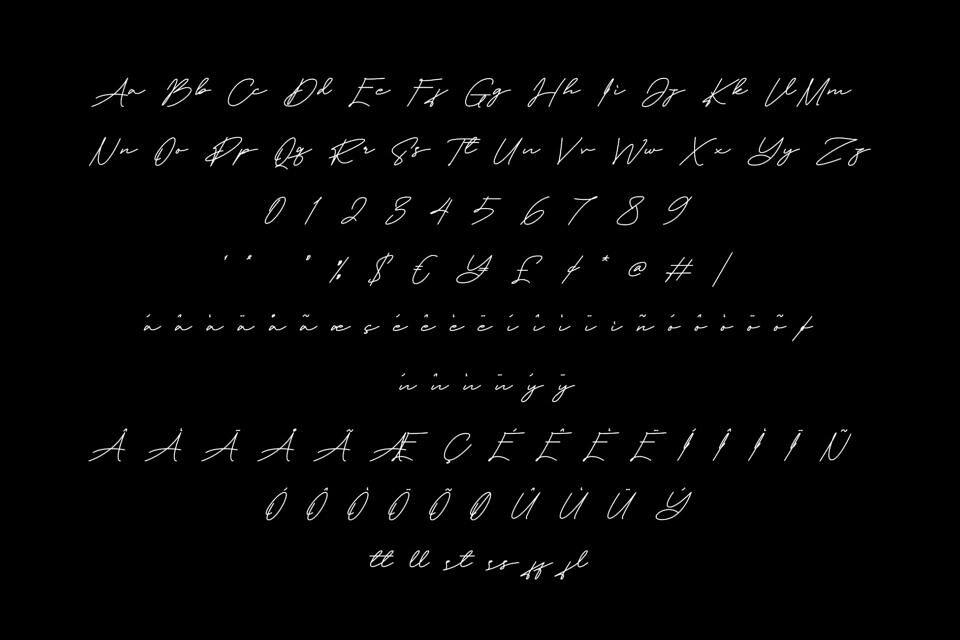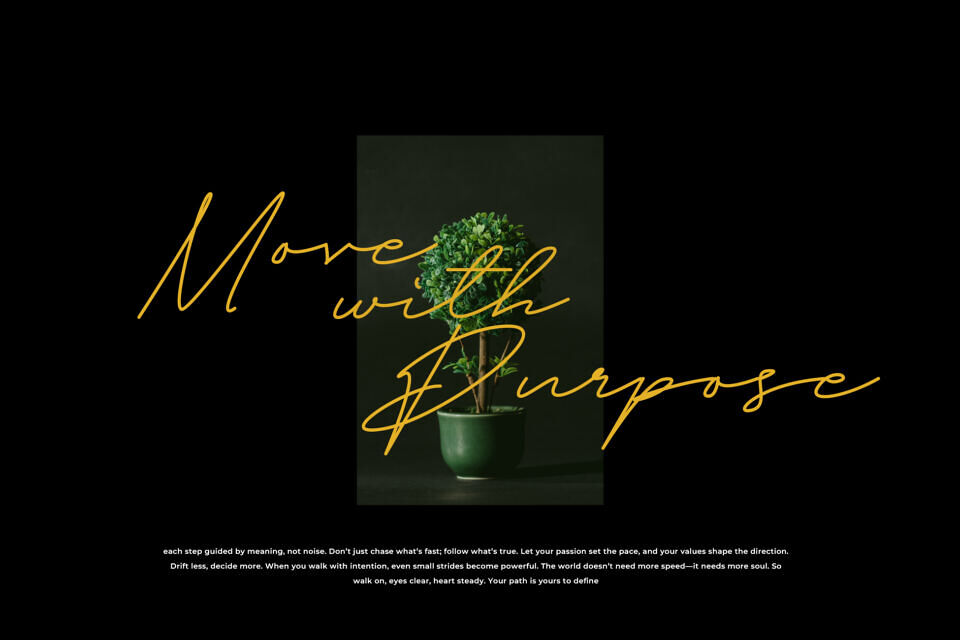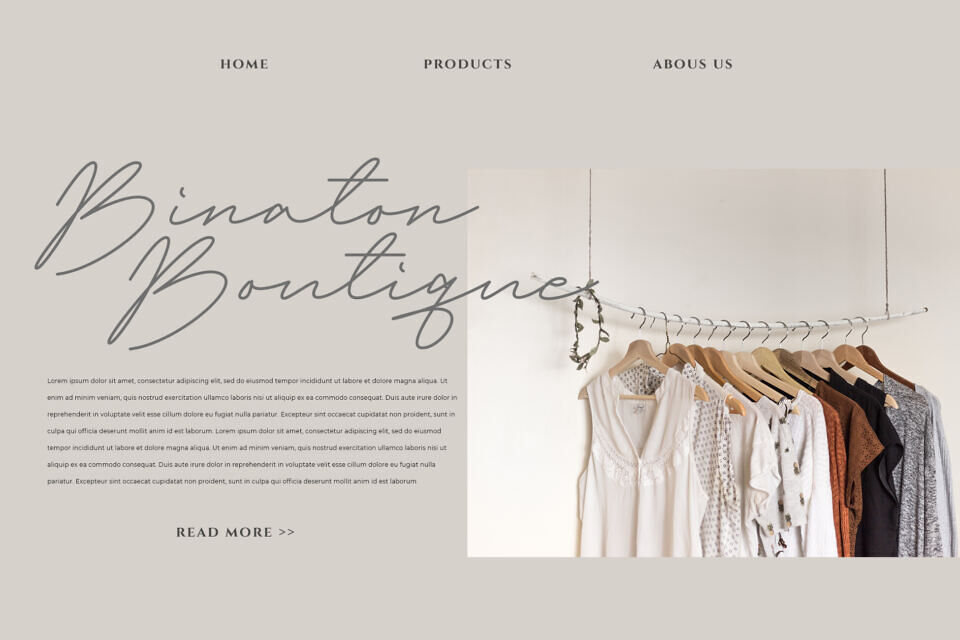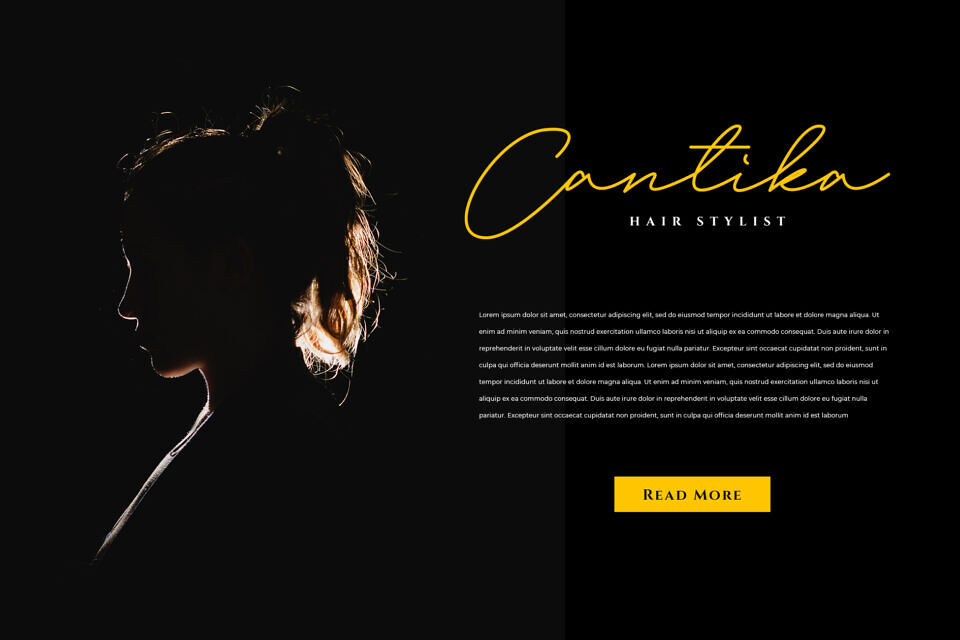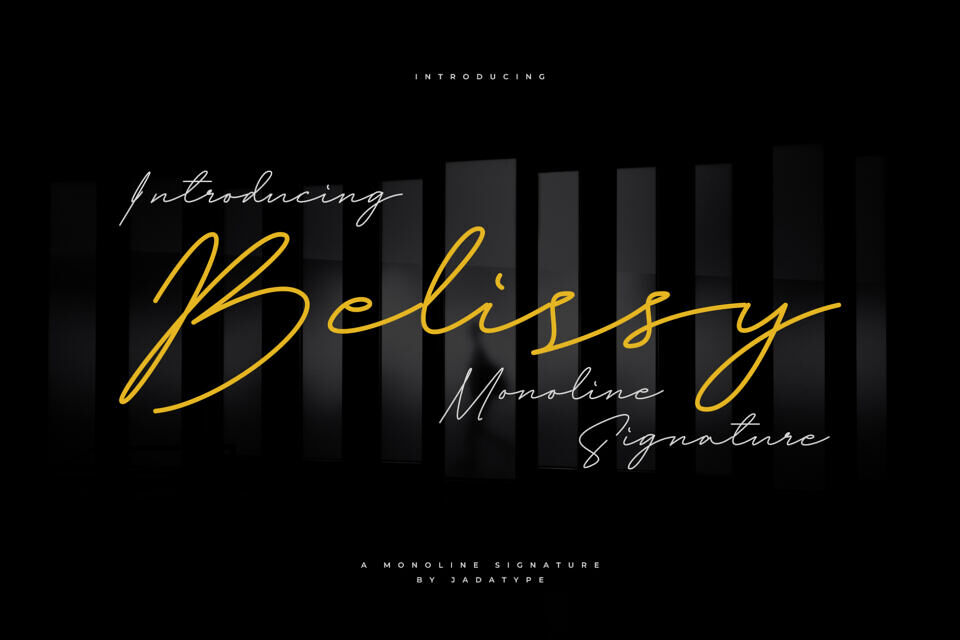
Belissy Font
Belissy is a script font with a monoline style. Suitable for social media, logotype, craft, advertisements, and so on. Contains standard English letters, numbers, punctuation, and several accents that support multilingualism.